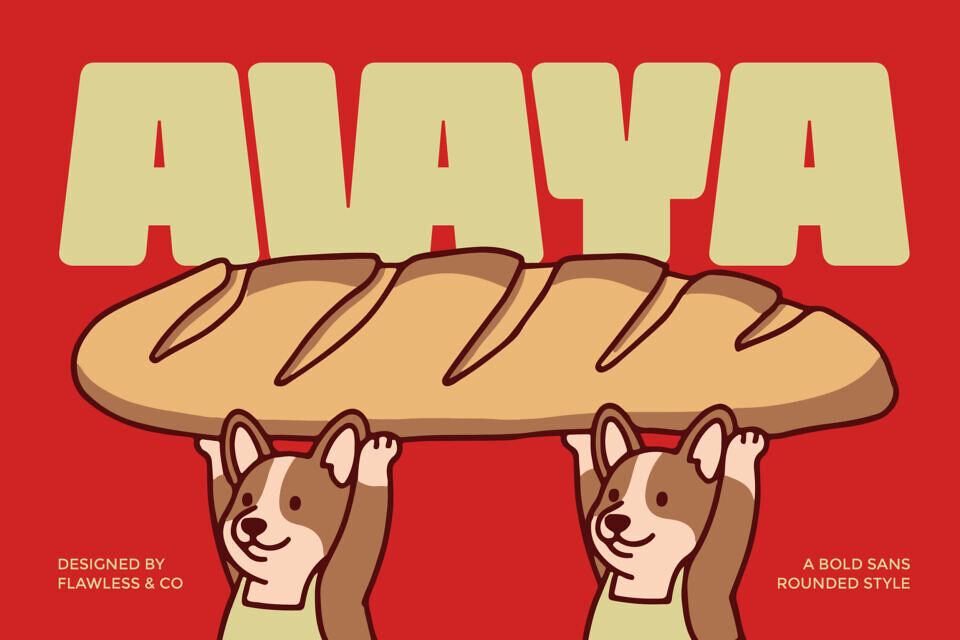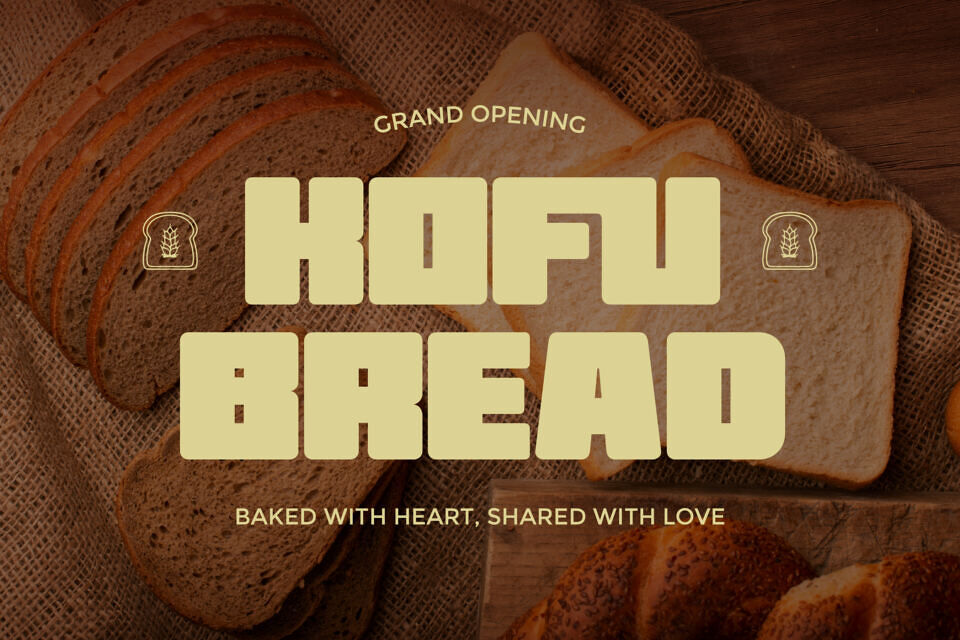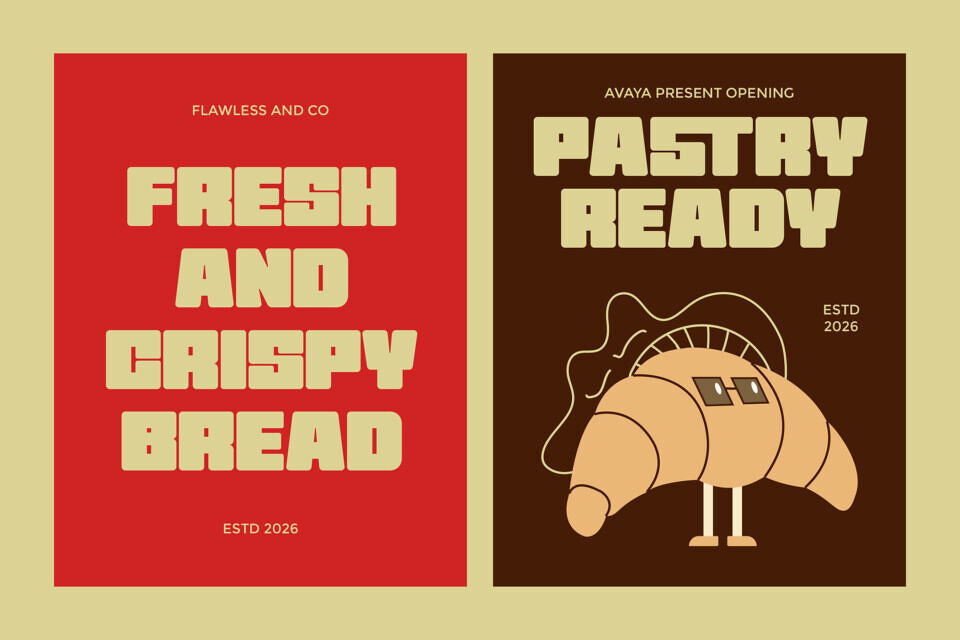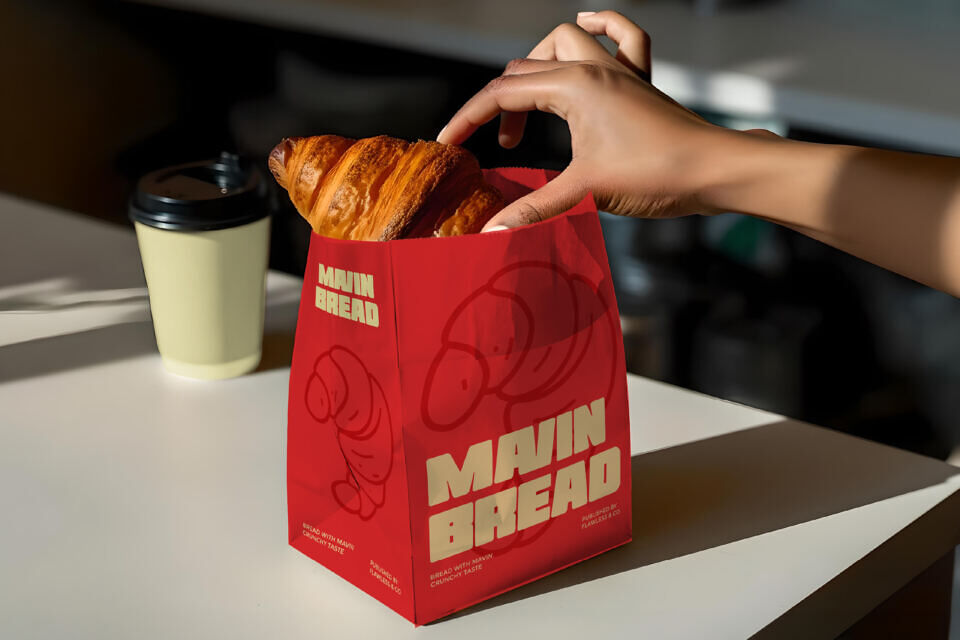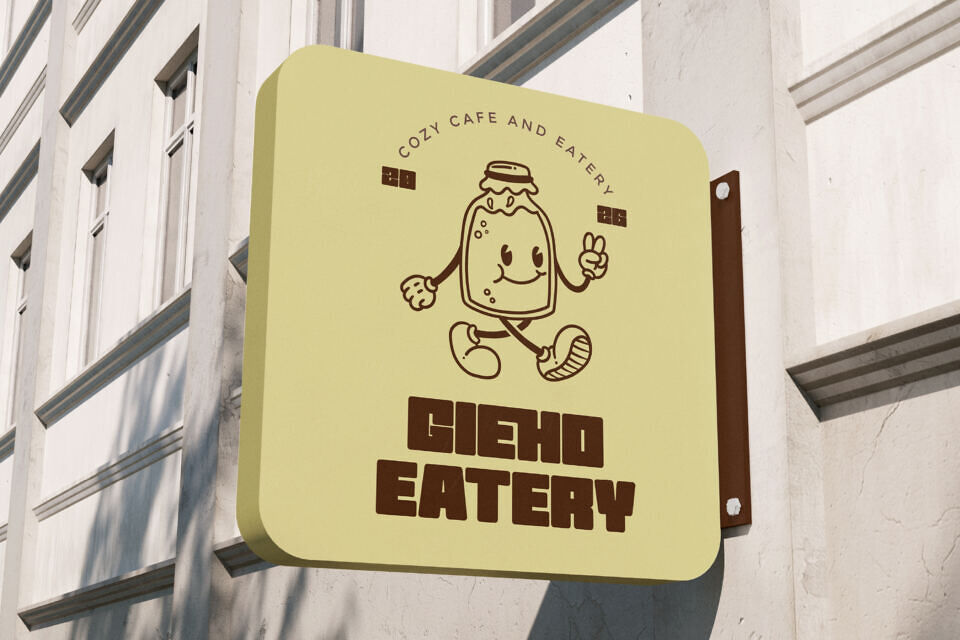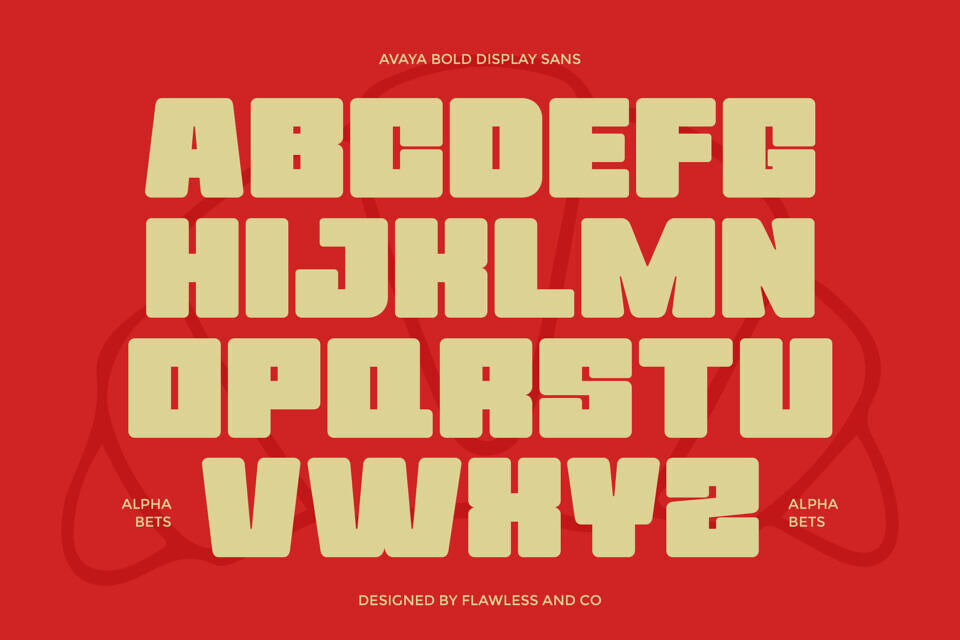
Avaya Font
Avaya is a bold rounded display sans typeface designed to deliver a strong yet friendly visual impact. With its thick letterforms, smooth rounded edges, and balanced proportions, Avaya creates a modern look that feels approachable and full of personality.
Its soft curves soften the bold structure, making it perfect for designs that want to stand out while staying warm and inviting. Whether for branding, headlines, or playful visuals, Avaya brings a clean and confident typographic style.